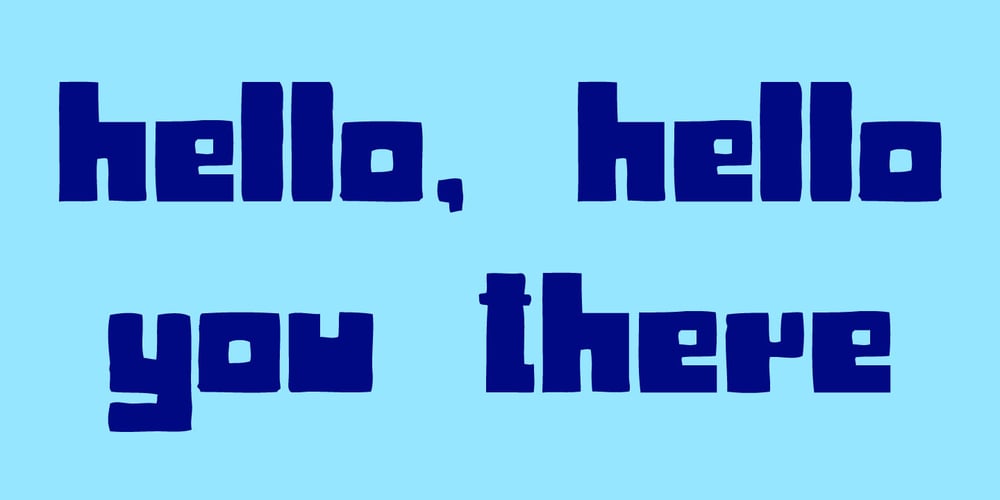
Serwus Font Family was designed by published by Agnieszka Ewa Olszewska. Serwus contains 2 styles and family package options. It’s font created for posters, ads, websites. I created it when I designed a poster, then later realized that I very often need such a letters so decided to complete all of the characters. It’s distinctive, spacious, hand made with narrow kern. Have more then 400 characters, smallcaps and text figures.